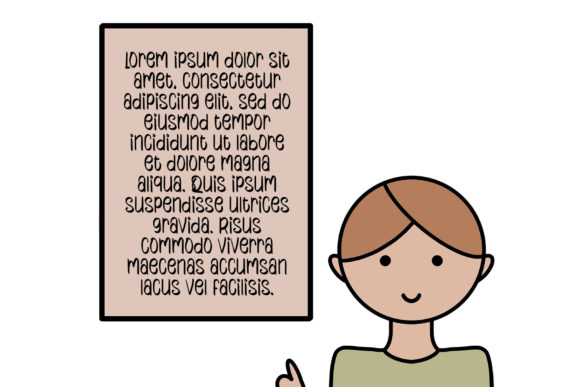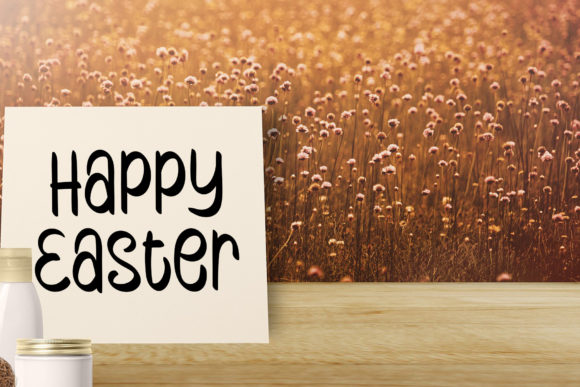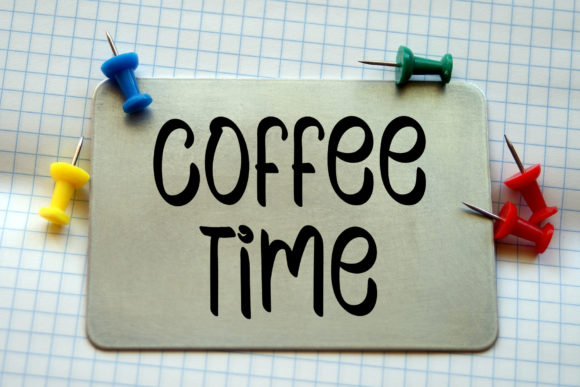
About Cotton Candy Font
Cotton Candy is a beautiful handwritten font that embodies charm and authenticity in every character. It’s a great choice for a wide range of projects, from stationery to wedding invitations, or more!